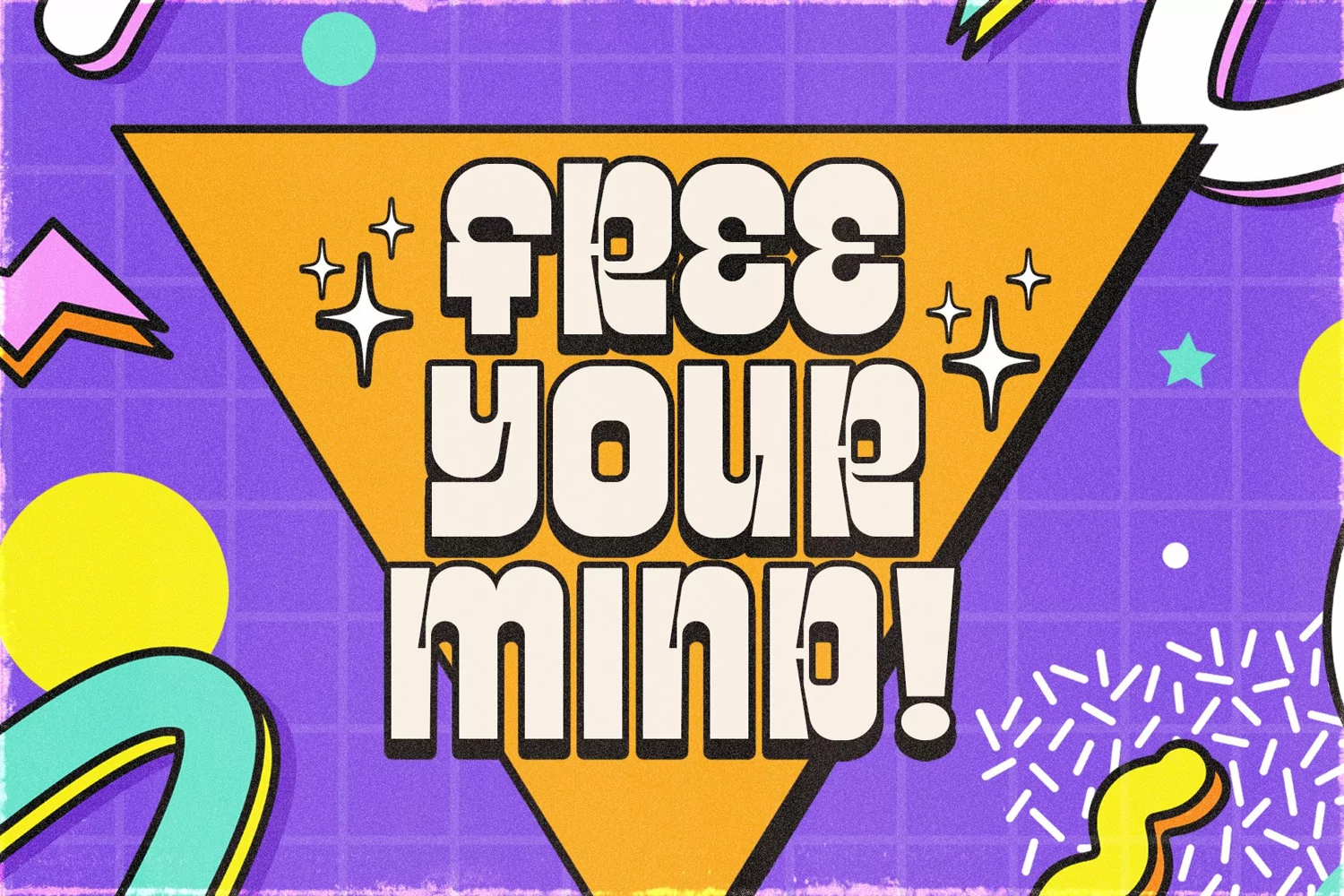
Daisy is a retro display typeface. Perfect for display, poster, quotes, film, craft needs, book cover, business card, packaging, merchandise, branding, logo, logotype, header, title, and many more